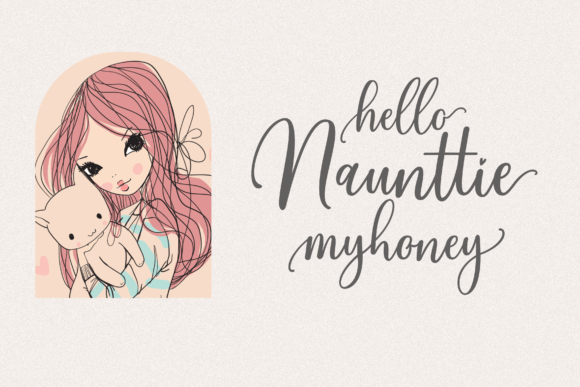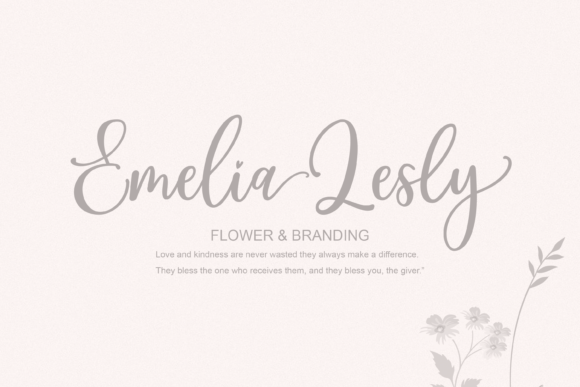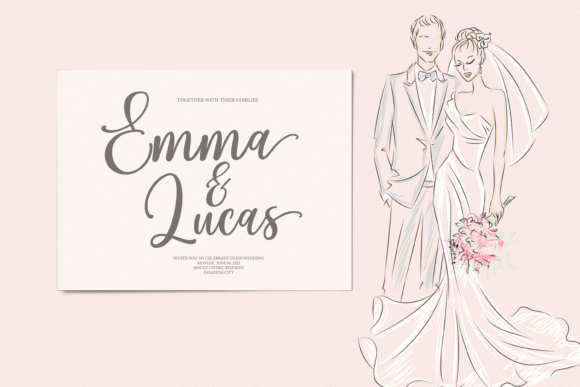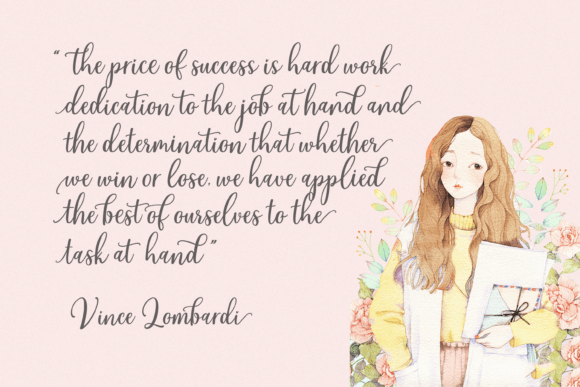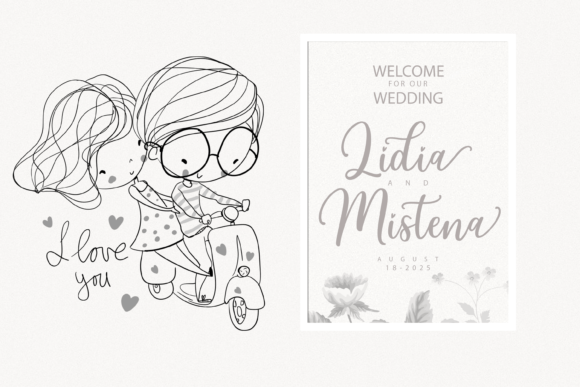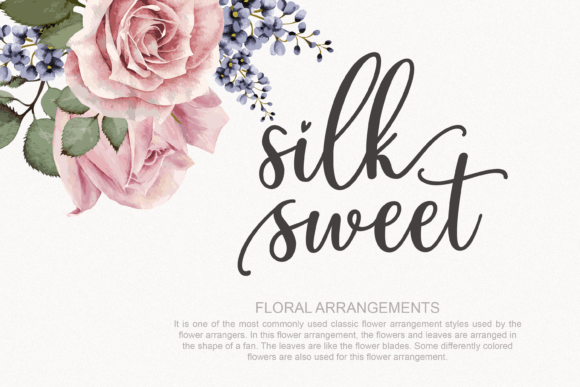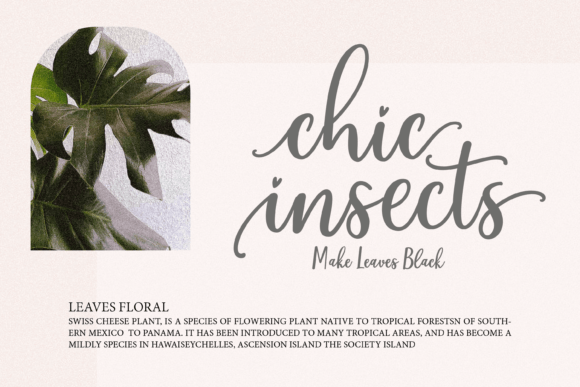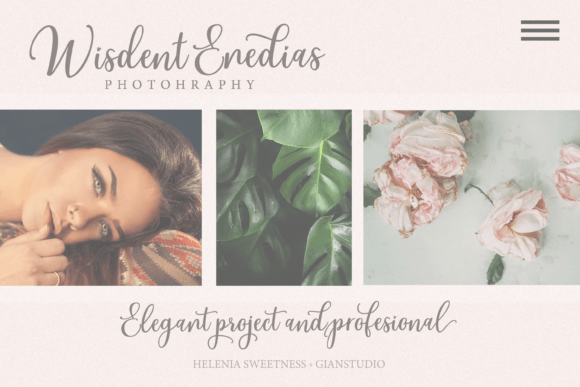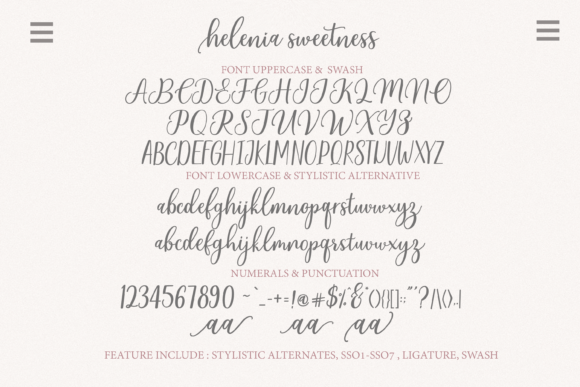
Helenia Sweetness Font
About Helenia Sweetness Font
Introducing Helenia Sweetness, a modern calligraphy script font designed with meticulous craftsmanship to make your text look beautiful. With its modern script style, this font is perfect for a wide range of projects, including invitations, greeting cards, posters, name cards, quotes, blog headers, branding, logos, fashion, apparel, letters, stationery, and more.
The careful crafting of every single letter in Helenia Sweetness ensures a high level of aesthetic appeal, making it suitable for various design applications. The modern script style adds a contemporary touch, making it versatile for both formal and informal contexts.
Consider using Helenia Sweetness to bring an elegant and modern calligraphic feel to your projects. Whether you’re designing invitations for special events, creating eye-catching posters, or enhancing your branding materials, this font is crafted to elevate the visual impact of your text.
In essence, Helenia Sweetness is more than just a font; it’s a design tool that brings modern calligraphy to your projects, making them beautiful and stylish. Let it be the perfect choice for creating stunning and visually appealing designs across a variety of applications.